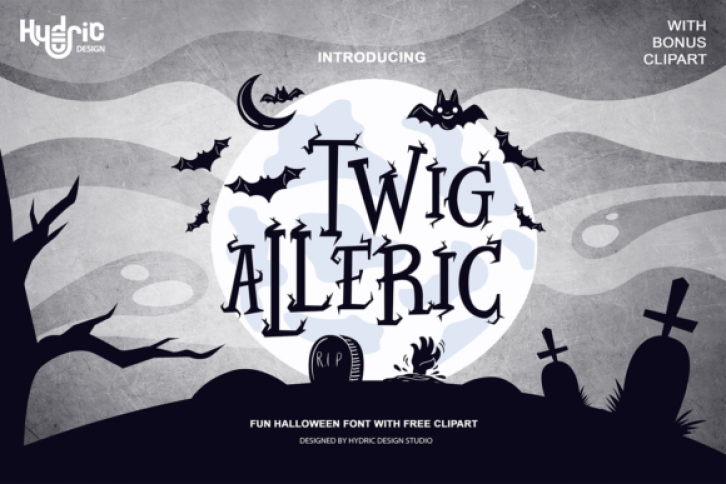
Twig Alleric is an incredibly unique and spooky display font. Add this font to your creative Halloween themed ideas and notice how it will make them stand out!